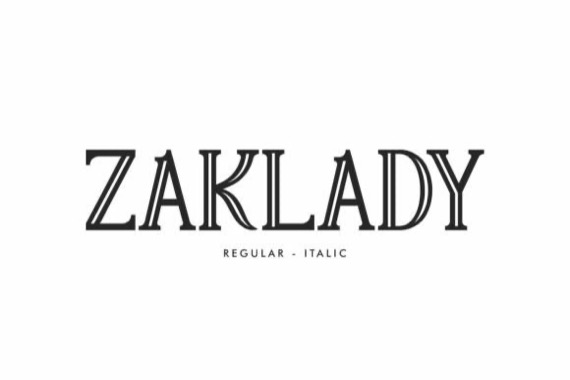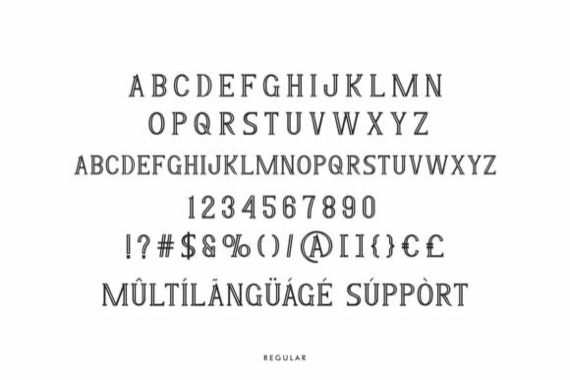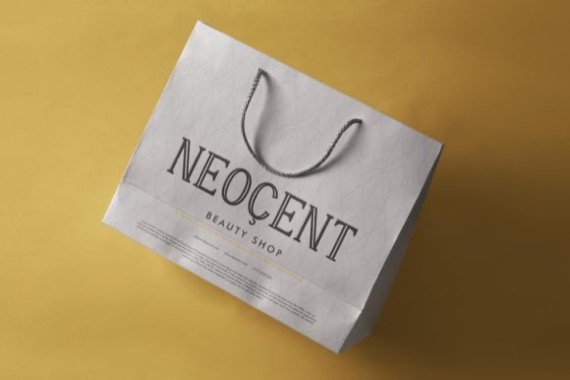
Zaklady was created and shared by Nihstudio and is a transitional serif font that is used in display contexts such as book descriptions and titles. This font can convey elegant and fanciful messaging and titles.
Zaklady Display Serif Font